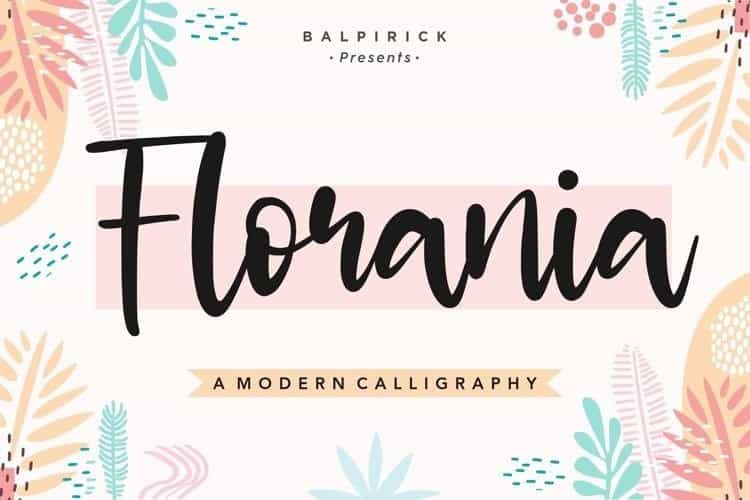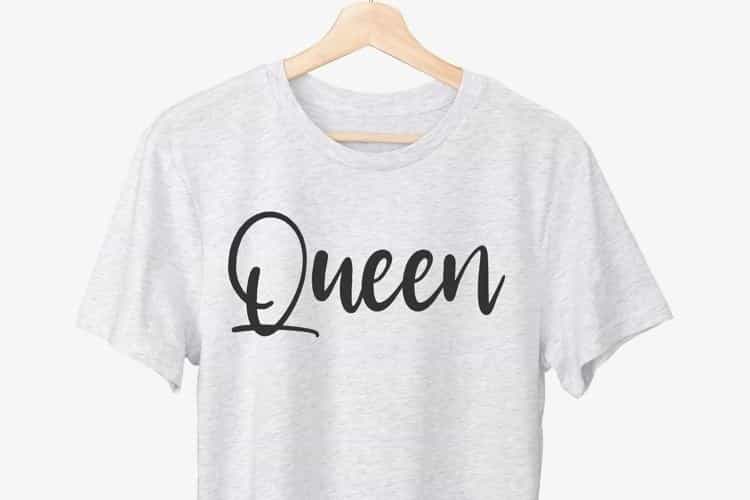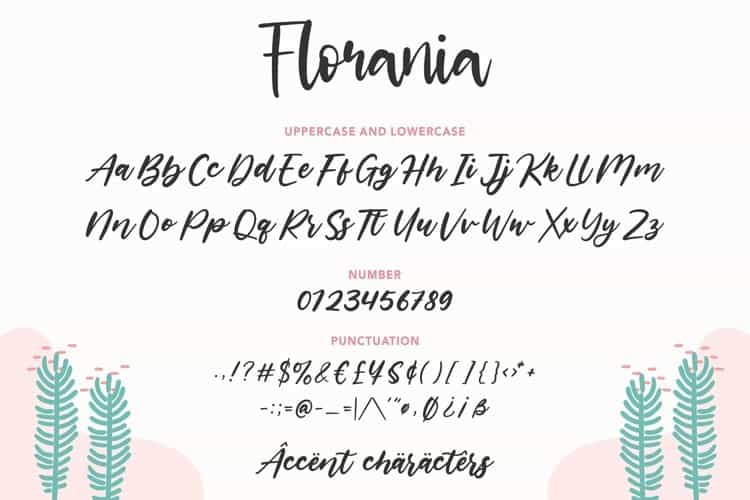
Florania is a modern calligraphy font that is versatile for various purposes such as greeting cards, branding materials, business cards, quotes, posters and more. It’s particularly well suited for wedding postcards or creating designs for logos, blogs, stationery, marketing materials, magazines and beyond.